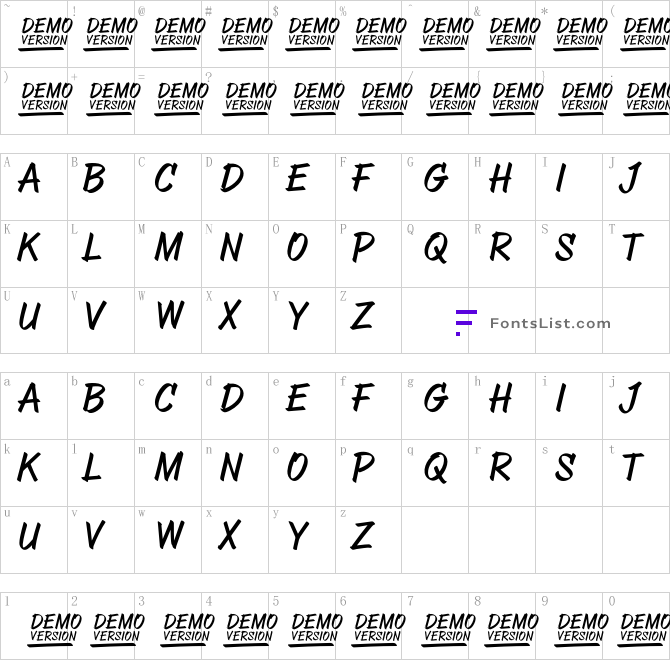
- Font Name:ABOVEA DEMO VERSION
ABOVEADEMOVERSION.otf is a very beautiful artistic font, ABOVEADEMOVERSION.otf is widely used in the design and printing of various books and pictures,ABOVEADEMOVERSION.otf has a strong visual impact,ABOVEADEMOVERSION.otf is a commonly used font in newspapers, magazines and books, and is used in posters, e-commerce Poster design, store design, logo design, font design and other fields.ABOVEADEMOVERSION.